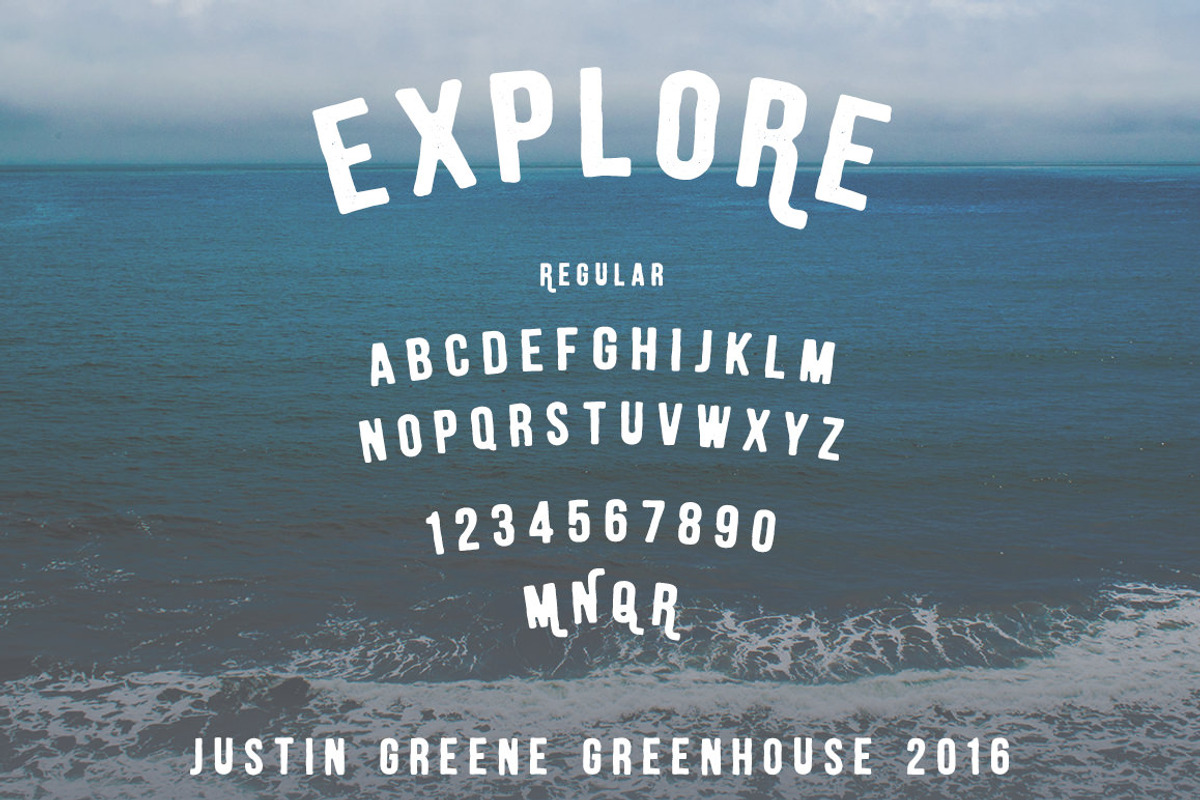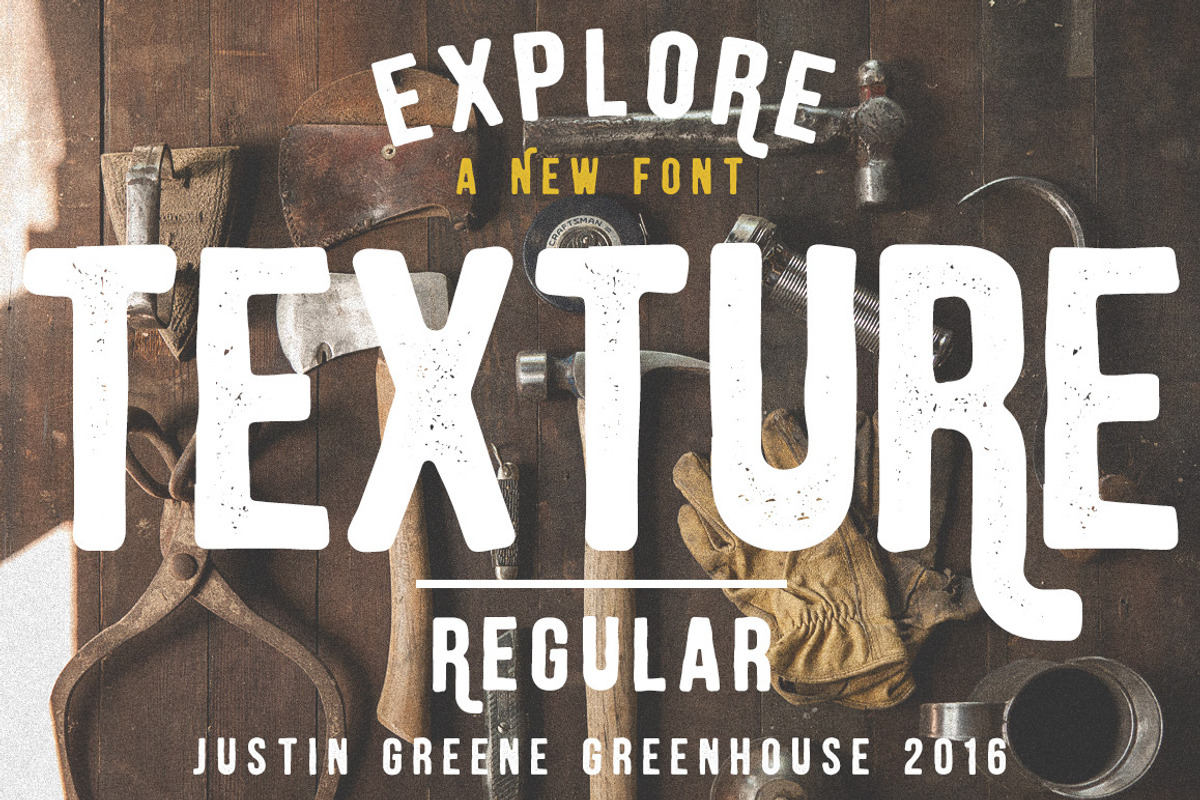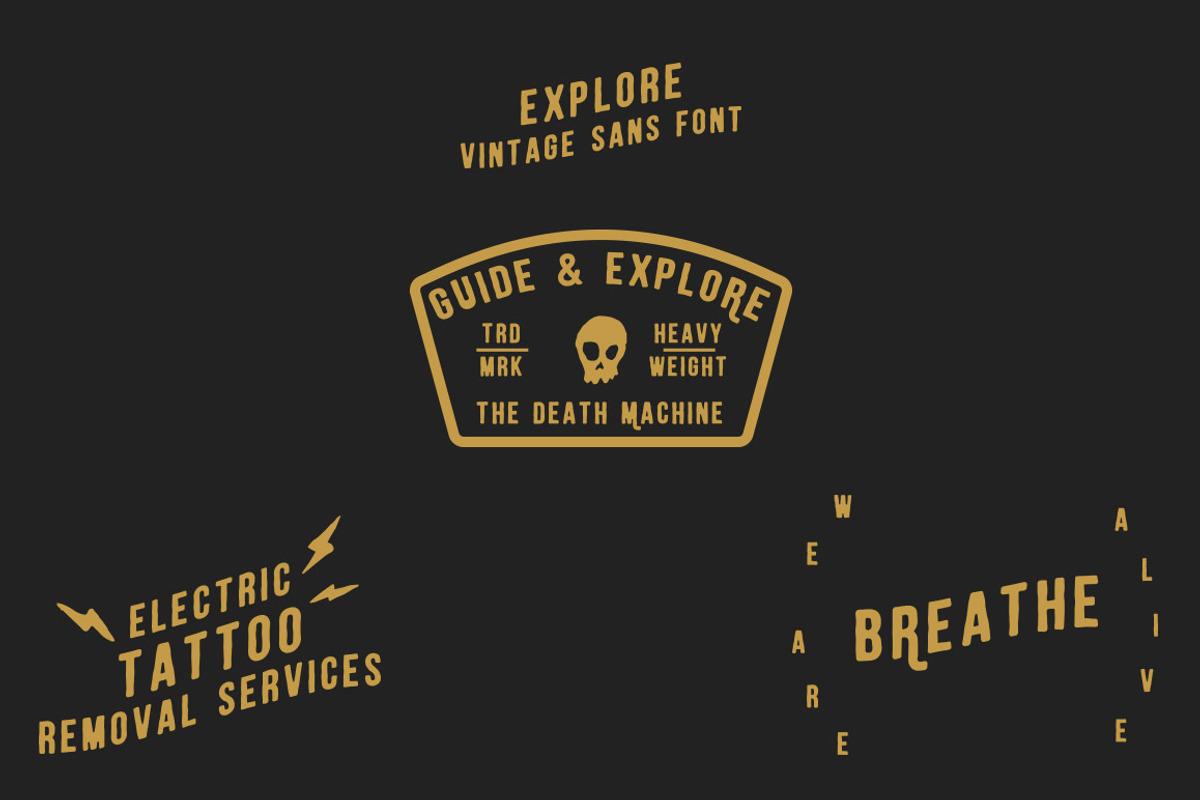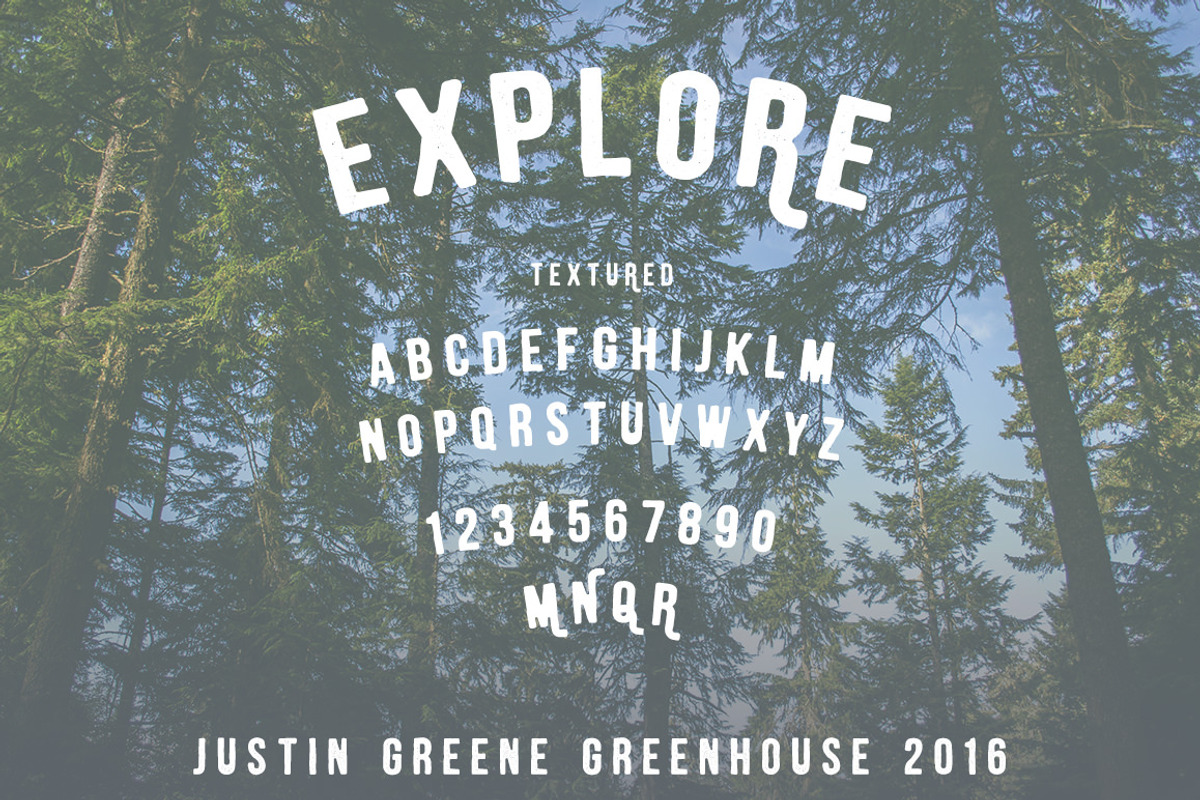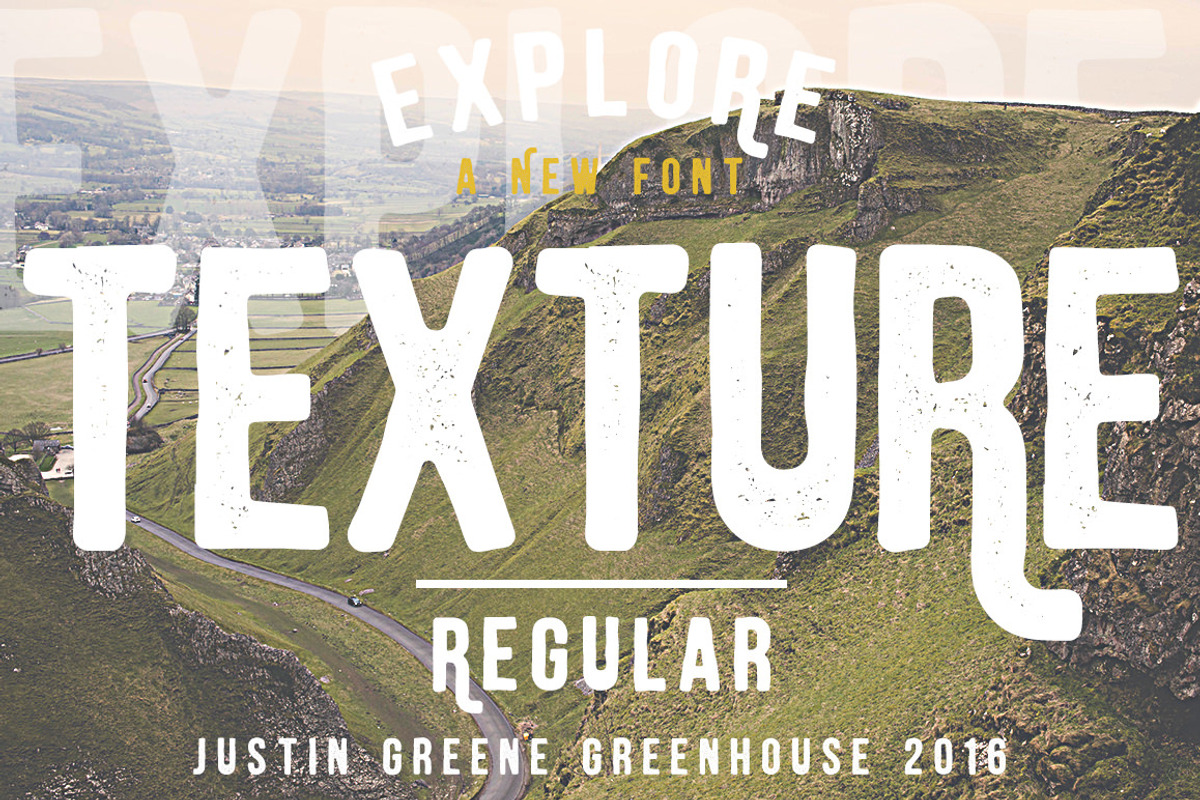
Explore ~ A Hand Drawn Font
Explore ~ A Hand Drawn Font by Greenhouse Supply Co is a font selected for branding, posters, packaging, typography.
- It includes alternate ligatures for several of the uppercase characters, just to achieve that Vintage signage & hand drawn inspired feel.
- As with anything made by Greenhouse, expect only the best, from the kerning to the alternates, down to the smallest details.
- The alternate uppercase characters are perfectly kerned for your use.
Why Explore ~ A Hand Drawn Font is worth a look
Explore ~ A Hand Drawn Font by Greenhouse Supply Co fits naturally into Branding, posters, packaging, typography.